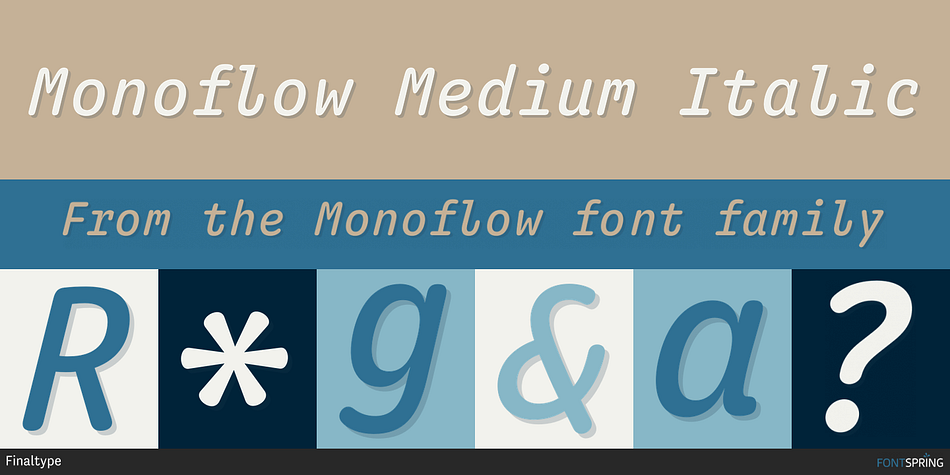
Monoflow Medium Italic
Designed by Hans Heitmann and Johannes Ammon, Monoflow is a sans serif font family. This typeface has eight styles and was published by Finaltype.
A monospace typeface with unique character and beautiful spacing.  It’s perfect for writing code and use in corporate design.
Foundry Finaltype
Designers Hans Heitmann, Johannes Ammon